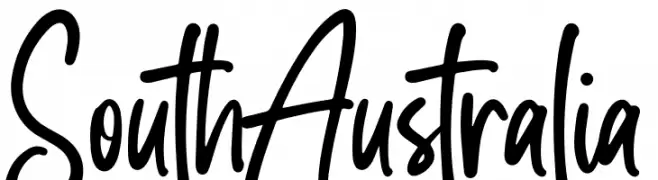
A bold, angular font with a modern geometric style.
A bold, decorative font with a shadow effect and intricate details.
A whimsical, gothic-inspired font with playful curves and sharp edges.
A playful, bold font with a hand-drawn, casual appearance.
A bold, hand-drawn font with outlined characters and a playful style.
A tall, narrow, and modern condensed font with uniform stroke width.
A dynamic font with elongated vertical lines and a dripping effect.
A modern, skyline-inspired font with tall, narrow characters and high contrast.
A modern, rounded font with elongated, narrow letterforms and smooth curves.
A bold, flowing script font with playful, interconnected characters.
A bold, textured, and playful font with a hand-drawn aesthetic.
A playful, handwritten font with bold, rounded strokes and a casual, friendly style.
A delicate and elegant handwritten script font with flowing strokes.
A delicate, elegant handwritten font with flowing strokes and graceful curves.
A bold, intricate blackletter font with sharp, angular strokes.
A decorative cursive font with elegant swirls and medium contrast.
A graceful and flowing script font with elegant cursive letters.
An elegant, flowing script font with high contrast and graceful, elongated letterforms.
A flowing, elegant cursive font with a modern handwritten style.
A modern, geometric sans-serif font with consistent stroke widths and clean lines.
An elegant, flowing script font with smooth, cursive lines and graceful curves.
A bold, playful font with a cartoonish, hand-drawn style.
A lively and elegant script font with smooth, flowing curves.
A graceful, cursive script font with a handwritten style.